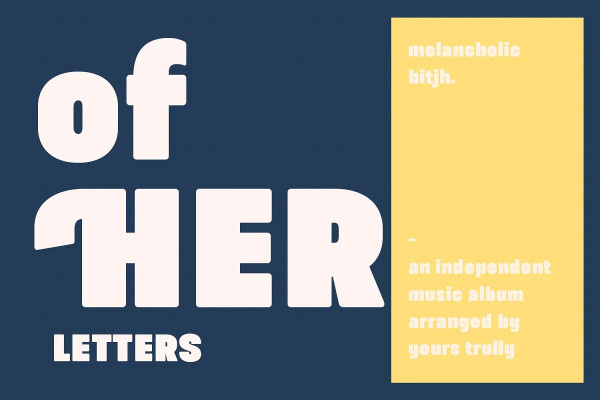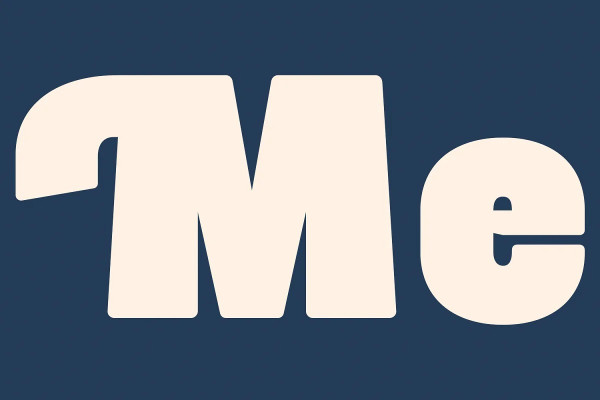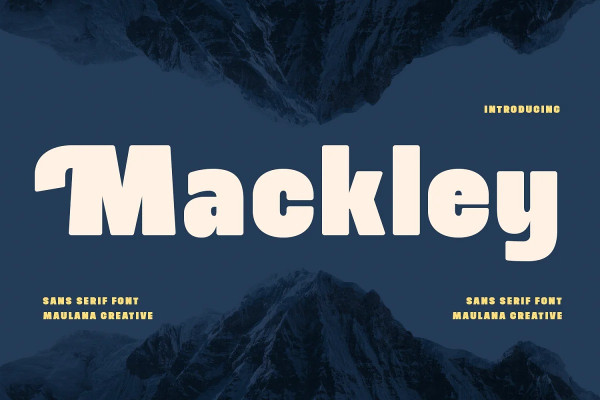
Mackley Sans Font
Mackley Font is a round extrabold sans display font. XBold stroke, fun character with a bit of ligatures and stylistic. To give you an extra creative work. Mackleyfont support multilingual more than 100+ language. This font is good for logo design, Social media, Movie Titles, Books Titles, a short text even a long text letter and good for your secondary text font with script or serif. Make a stunning work with Mackley font.